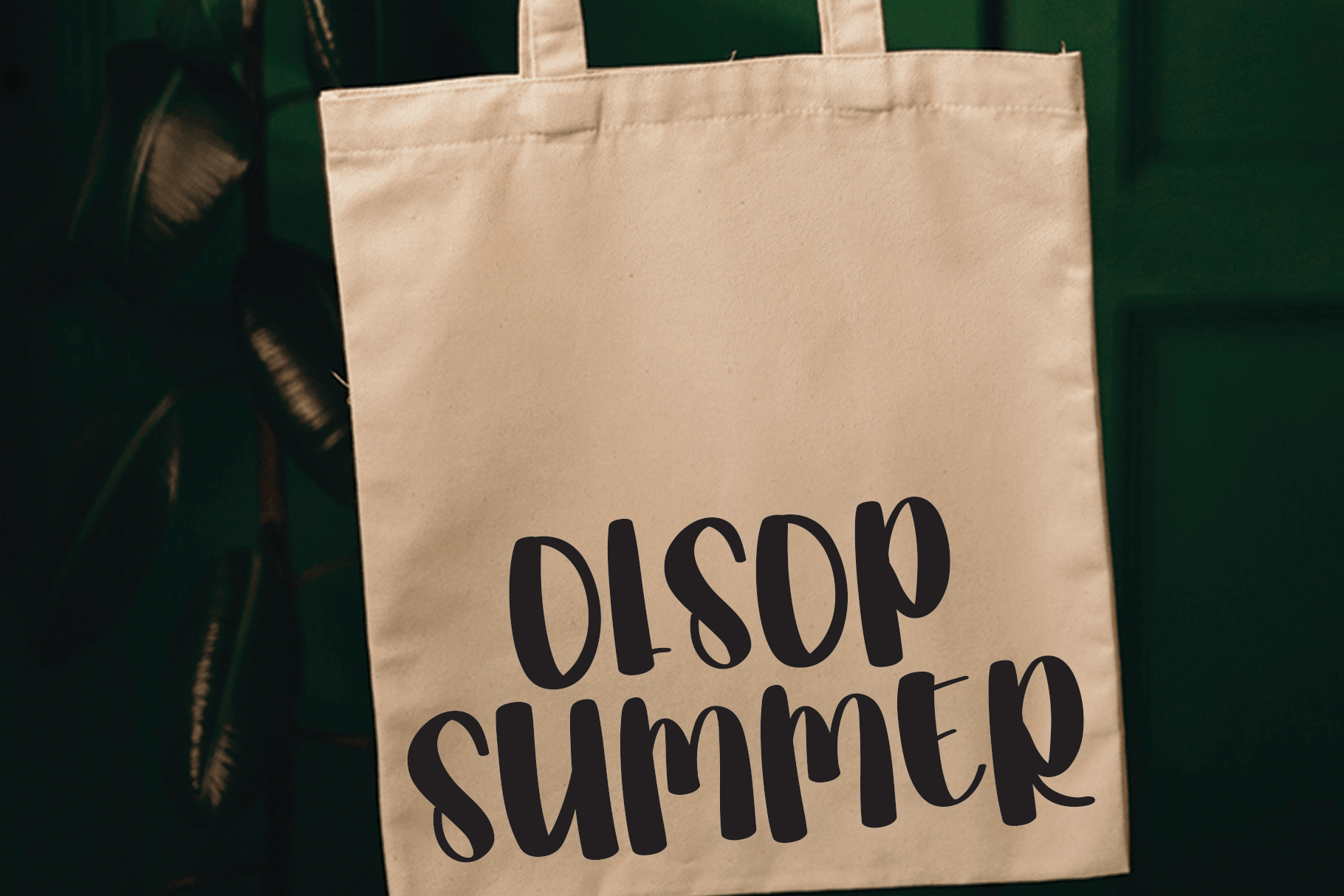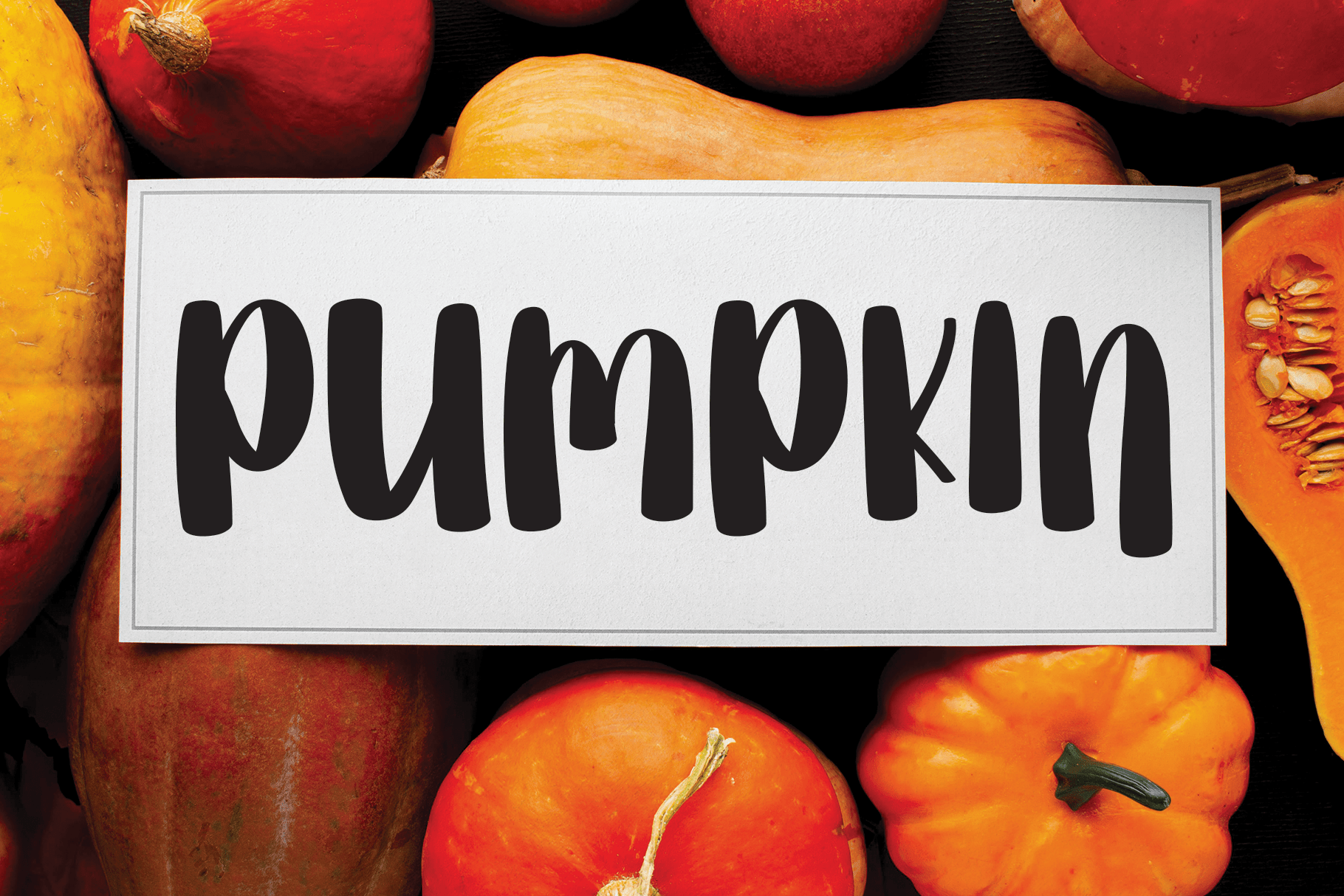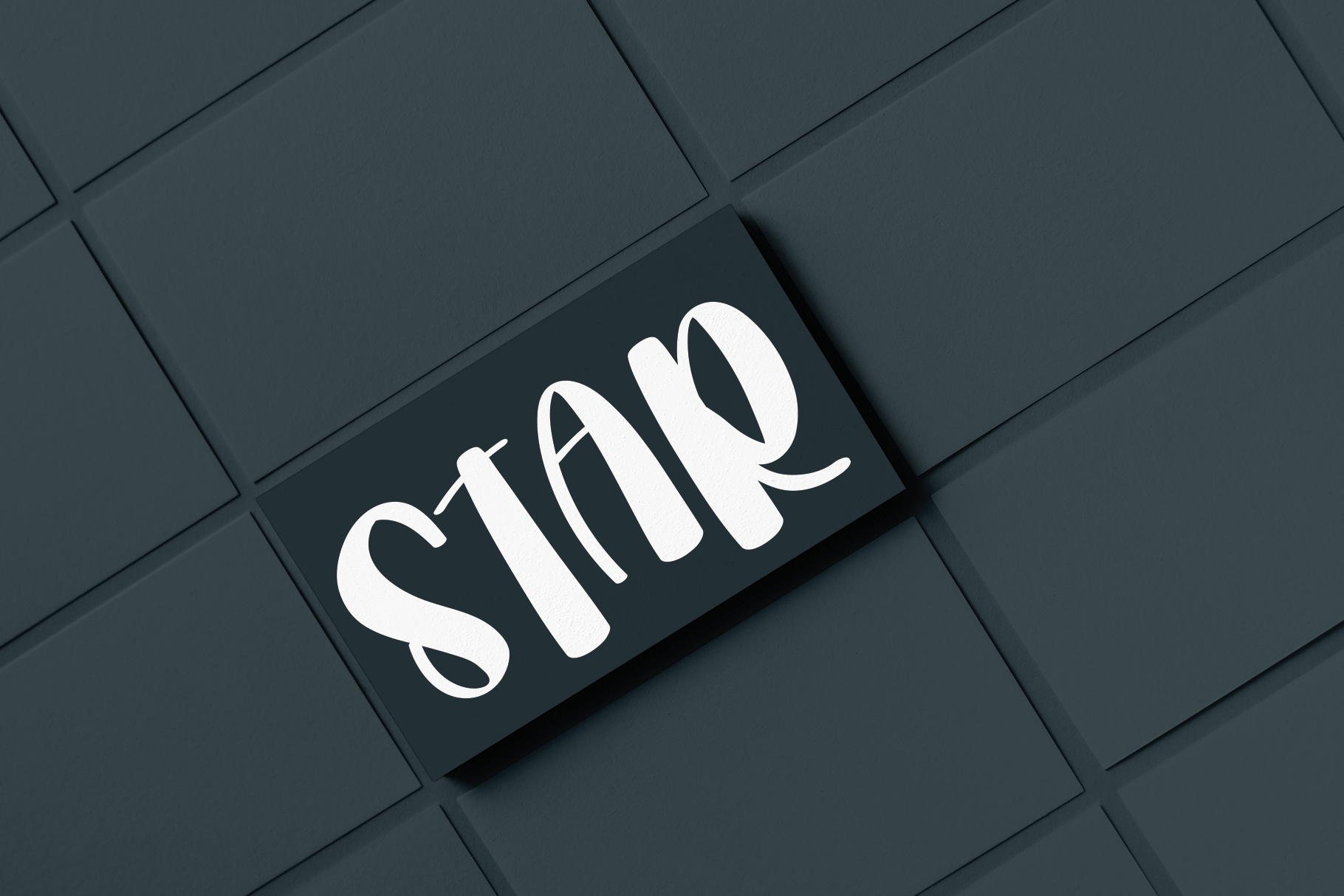
Babe Font
Babe Display Font
It’s a playful and modern-looking display font. With slightly uneven characters and a friendly vibe, this typeface would make an excellent choice for each of your upcoming projects!